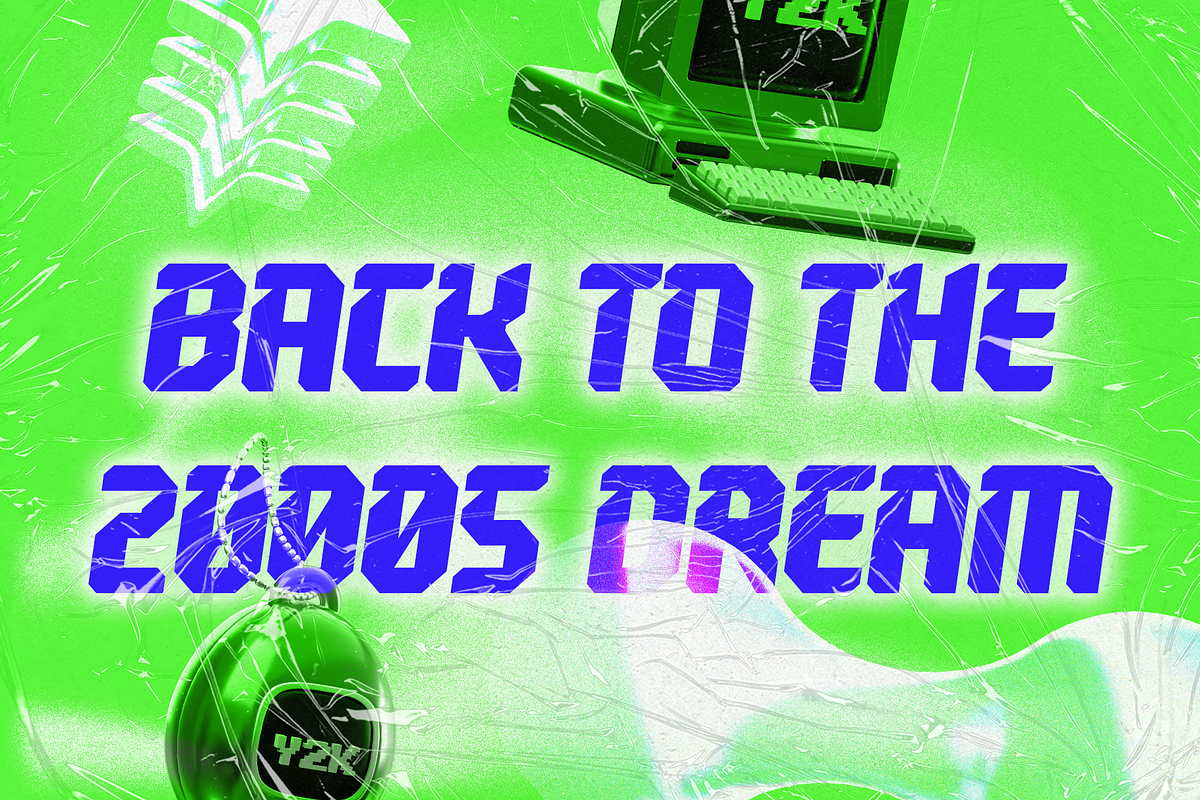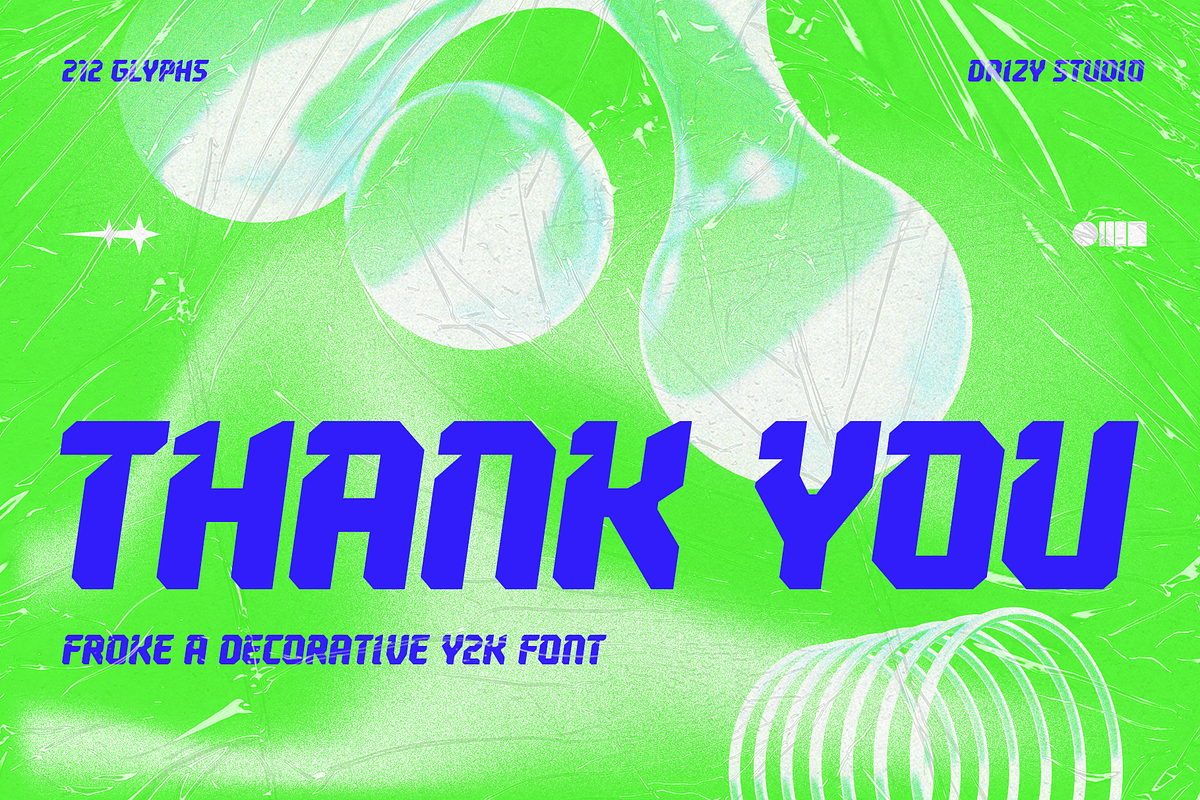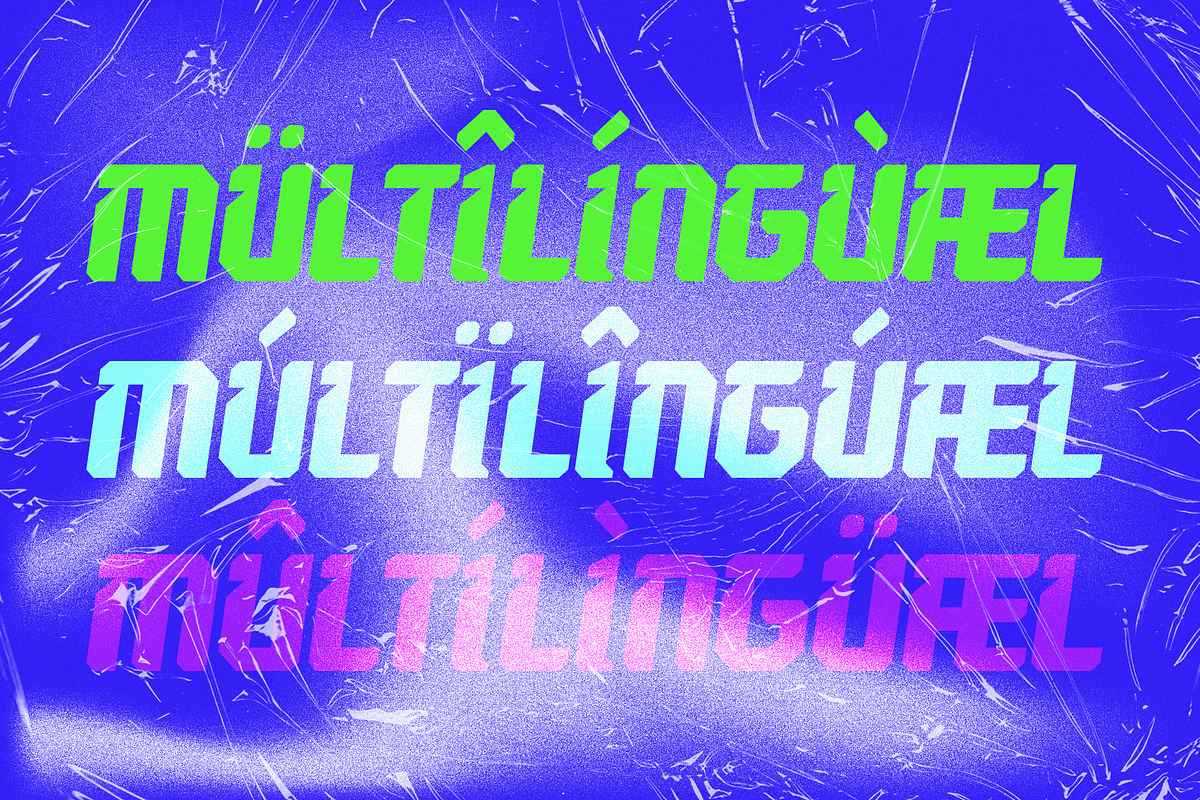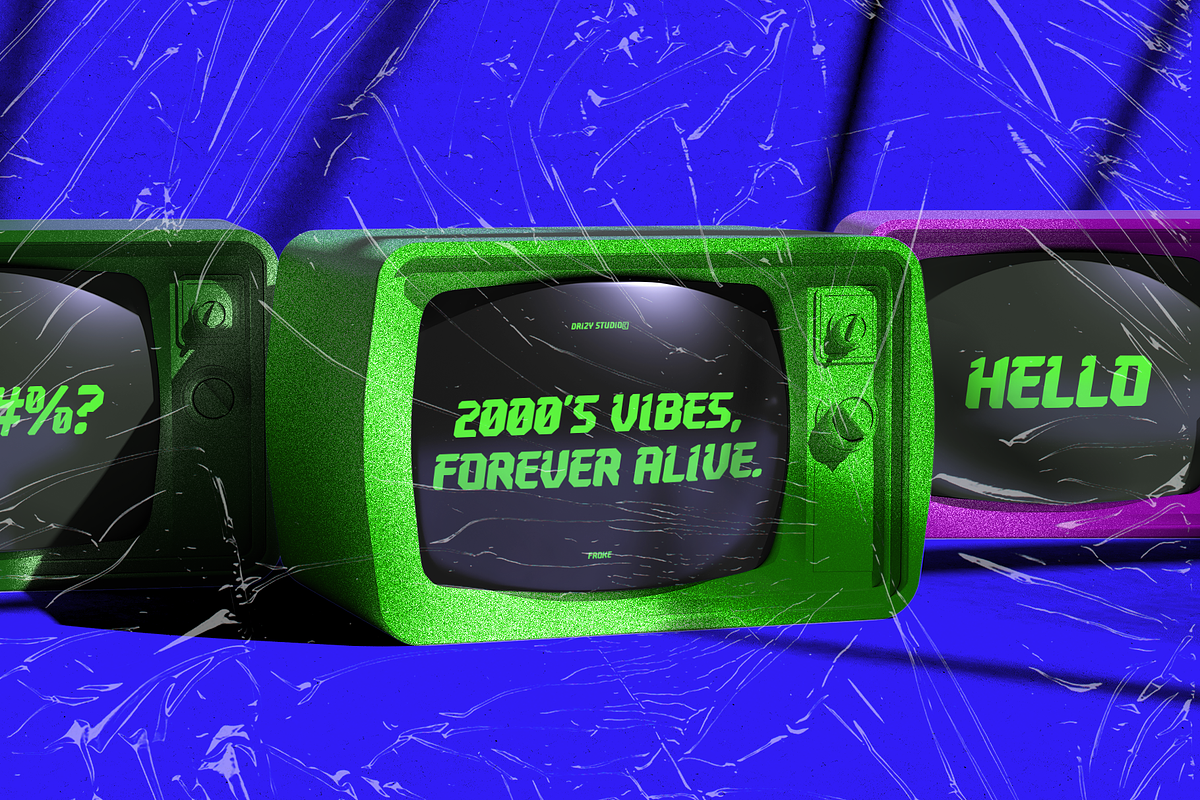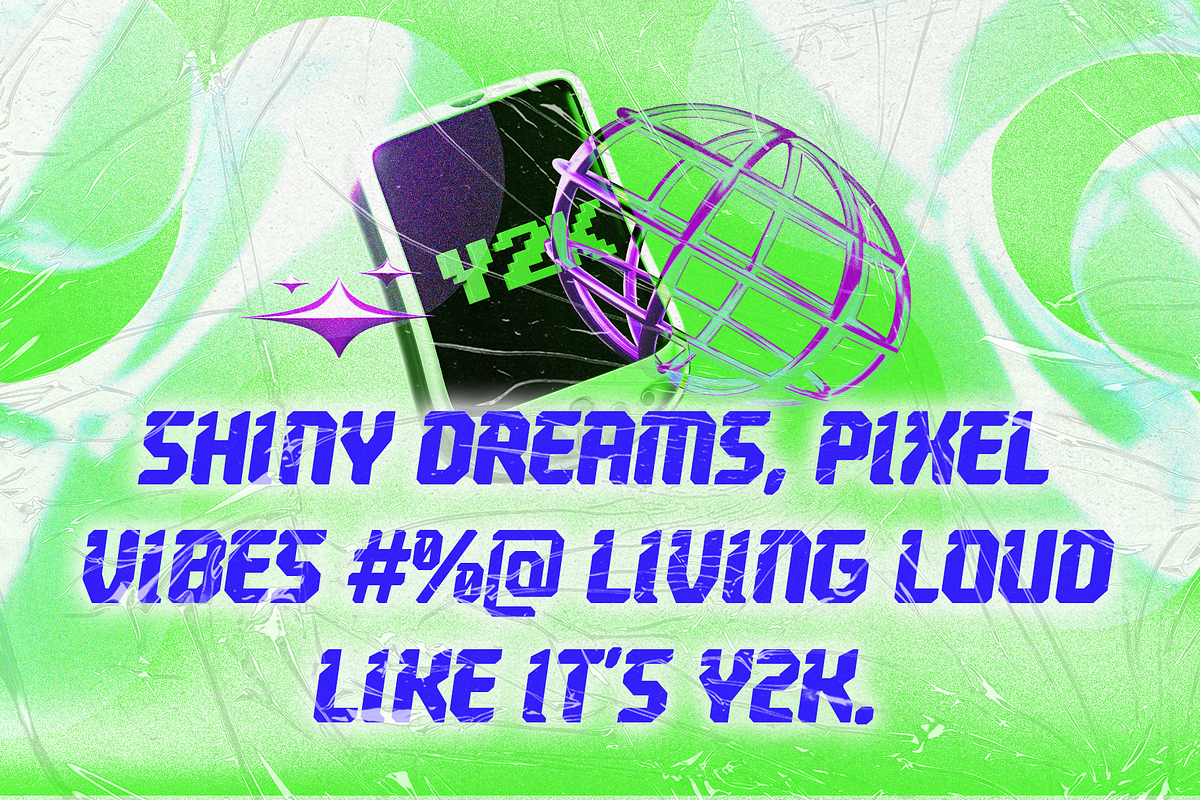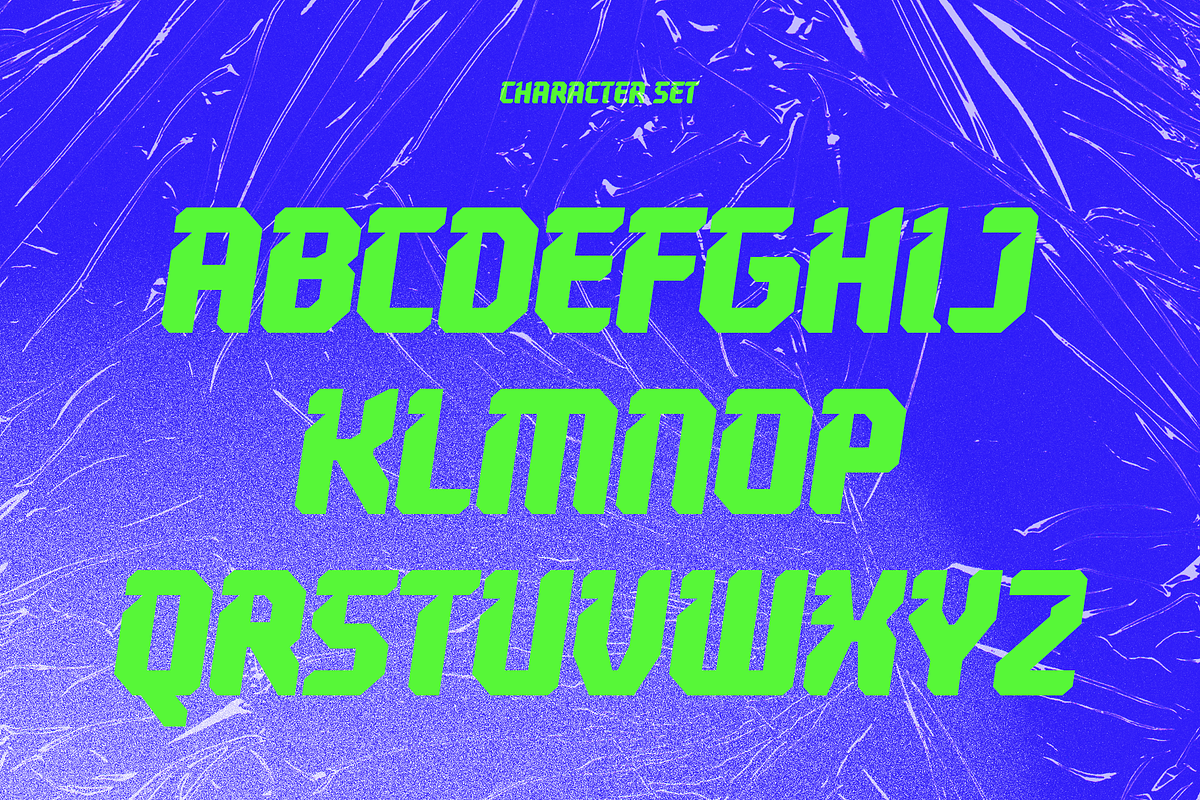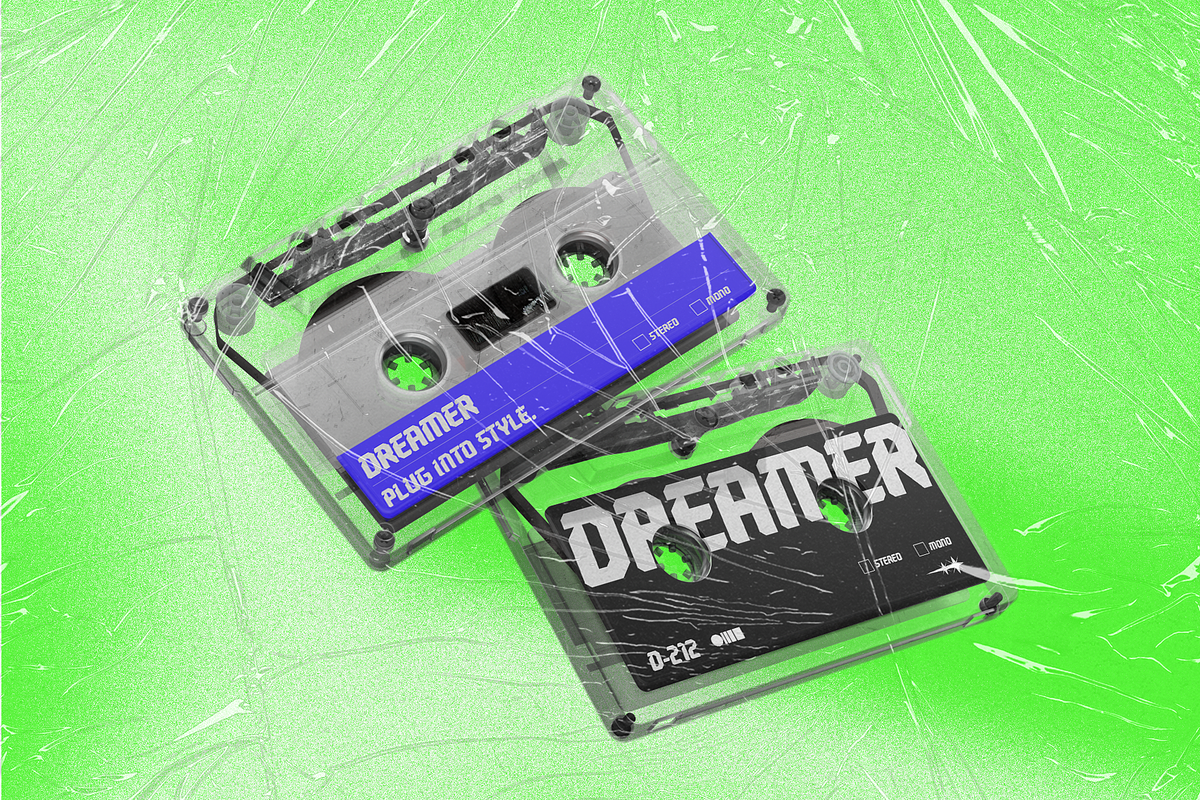
Froke - Japan Y2K Style Font
Froke is a bold and futuristic display font inspired by Japan’s vibrant Y2K aesthetic. Blending sleek techno lines with a touch of retro cyber energy, this font captures the essence of early 2000s futurism and modern digital style. Perfect for logos, posters, game titles, or fashion branding, Froke delivers a sharp, forward-looking vibe with a distinctly Japanese edge.